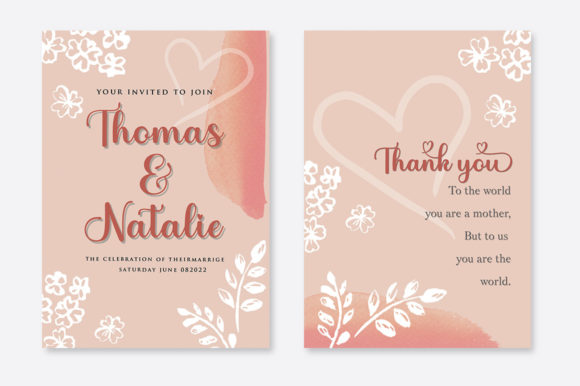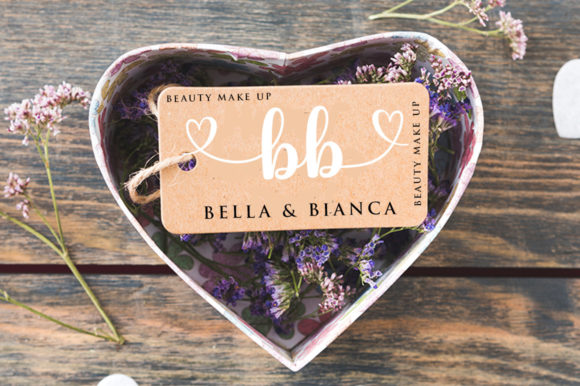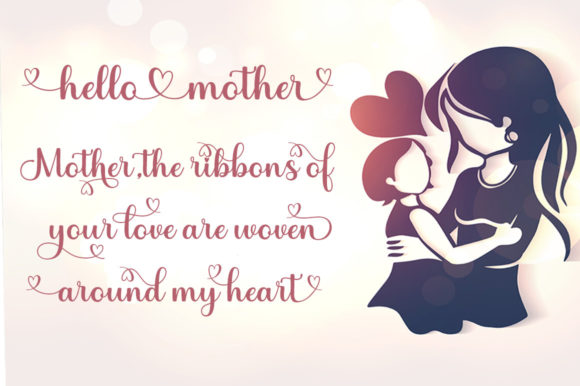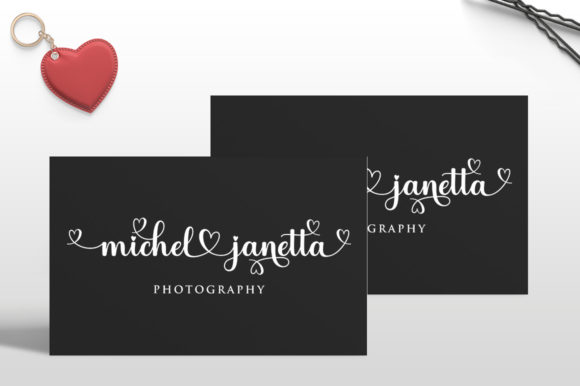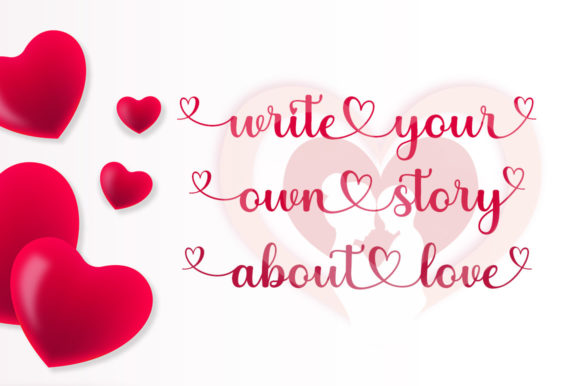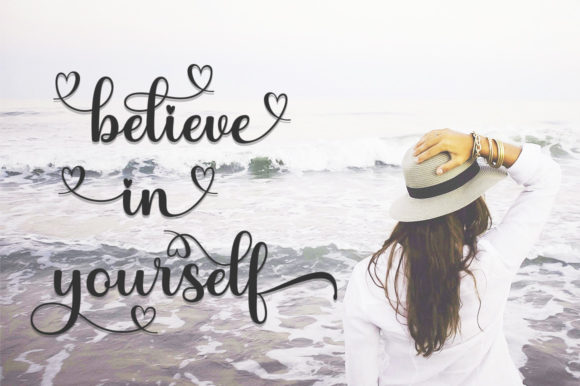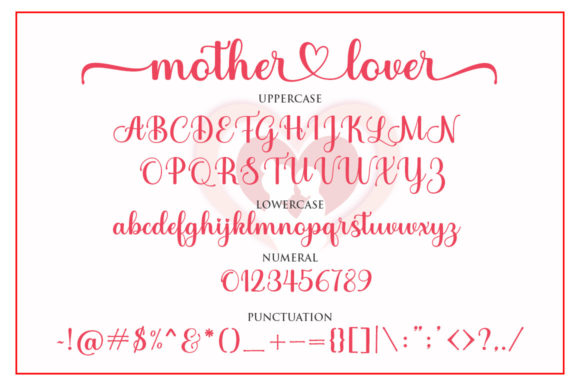
Mother Lover Font
About Mother Lover Font
Mother Lover is a dazzling script font that exudes elegance and style. With its meticulously crafted letterforms and intricate details, this font adds a touch of sophistication to any design project.
The precise craftsmanship of Mother Lover is evident in every curve and stroke. Each letter has been carefully designed to create a harmonious and balanced appearance, resulting in a font that is visually appealing and pleasing to the eye. The high level of detail adds depth and dimension to the text, making it stand out and capture attention.
No matter the topic or theme of your project, Mother Lover is a versatile font that can enhance any creation. Whether you’re working on branding, packaging, invitations, quotes, or any other design, this font brings a sense of elegance and refinement. Its graceful and flowing nature adds a touch of luxury and sophistication to your text.
The PUA encoding of Mother Lover allows easy access to all the glyphs and swashes, giving you the flexibility to customize and personalize your designs. With a wide range of stylistic alternates and decorative elements, you can create unique and eye-catching compositions. The swashes and flourishes add a whimsical and decorative touch, allowing you to add flair and creativity to your typography.
The attention to detail in Mother Lover extends beyond the letterforms. The font is designed to maintain legibility and readability, even at smaller sizes or when used in longer passages of text. This makes it suitable for a variety of design applications, from headlines and titles to body text.
Whether you’re designing for print or digital platforms, Mother Lover shines with its versatility and visual impact. It adds a touch of elegance and sophistication to logos, branding materials, advertisements, social media graphics, and more. Its versatility allows it to adapt to different design styles and themes, making it a valuable asset in your font library.
In summary, Mother Lover is a dazzling script font that combines elegance, craftsmanship, and attention to detail. Its versatility, intricate details, and PUA encoding make it a valuable asset for enhancing any design project. With Mother Lover, you can create stunning compositions that leave a lasting impression on your audience.